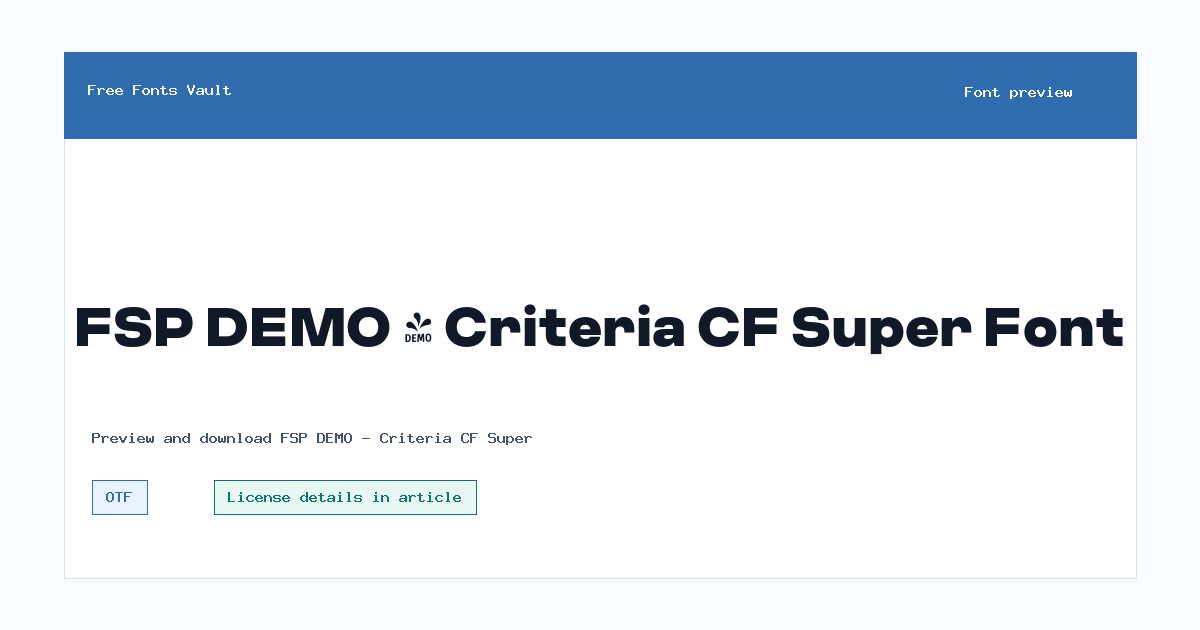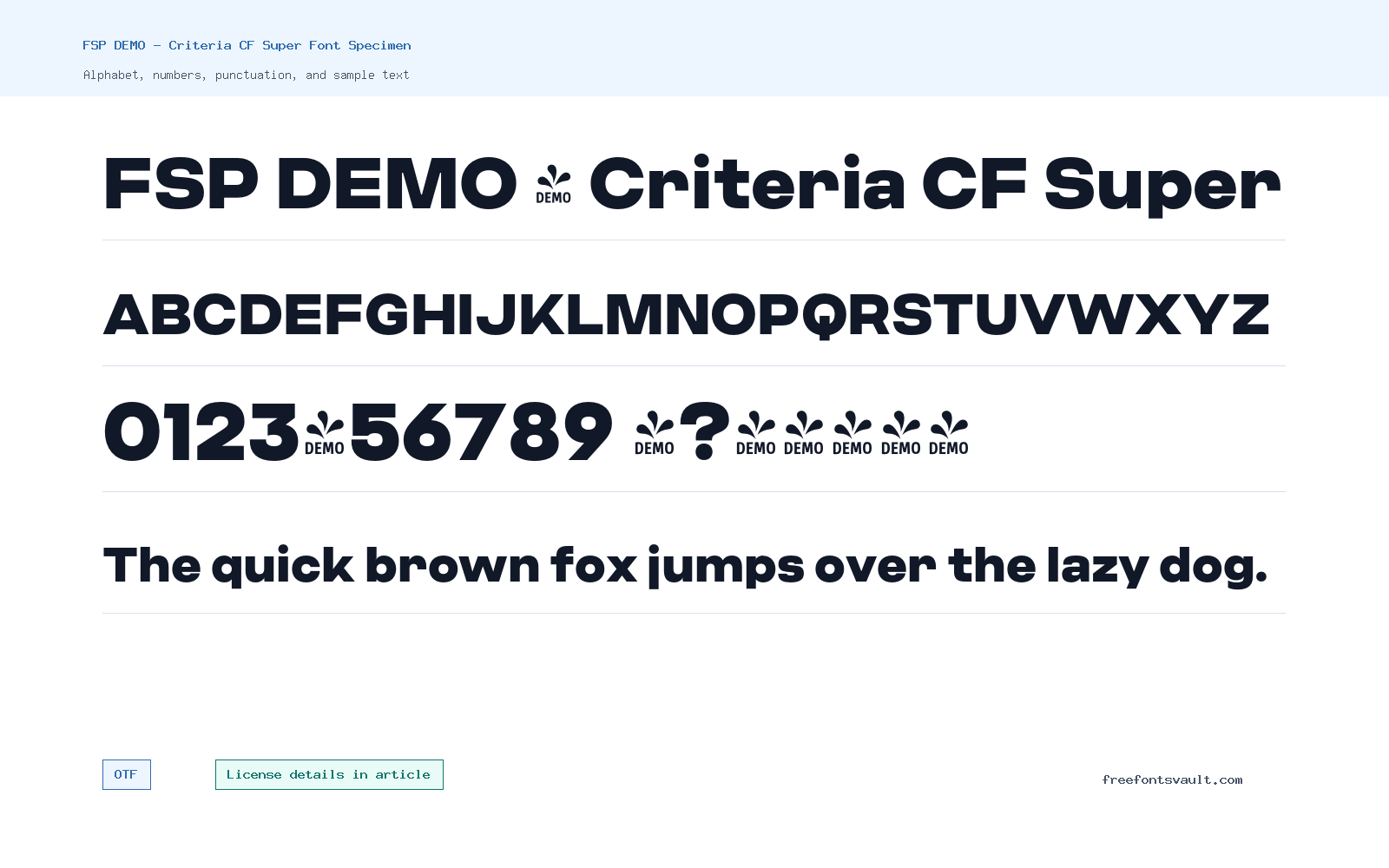
FSP DEMO - Criteria CF Super
• Designer Connary Fagen
• Foundry Connary Fagen
FSP DEMO – Criteria CF Super is a demo OpenType font connected to Criteria CF, a geometric sans family by Connary Fagen. It has a clean, constructed look that works best when you want short text to feel modern, direct, and tightly organized.
About FSP DEMO – Criteria CF Super
Criteria CF is described by Connary Fagen as a geometric sans built from straight lines and clean circular forms. The family is made for stacked lowercase text, strong headlines, and wordmarks, so this Super demo is a good style to test when your design needs bold structure rather than decorative detail.
Use the preview box with real words, brand names, menu labels, and short headlines. Geometric sans fonts can look sharp in display sizes, but spacing and letter shapes may feel tight in longer reading text, so check uppercase words, numerals, and mixed-case lines before committing to a layout.
Because this is a Super style, test it as a display face first. It may look strongest in bold one-line messages, compact navigation labels, or a logo draft where the geometric construction is visible. If you need several paragraphs, use Criteria CF Super for the heading and switch to a quieter text font below it.
• Geometric sans-serif character with straight forms and circular shapes
• Strong Super cut for short, assertive display settings
• Upright OTF style for direct headline testing
• Headlines, short titles, and poster-style text
• Logos, wordmarks, labels, and clean digital mockups
• Modern interface mockups, clean title systems, and compact branding tests
Criteria CF is by Connary Fagen, with the foundry listed as Connary Fagen.
Try it at larger sizes first. Check spacing around round letters, all-caps words, numbers, and punctuation. Pair it with a calmer text face if you need long paragraphs, because this style is better suited to short, high-impact text.
What kind of font is Criteria CF Super?
It belongs to the Criteria CF geometric sans family, which uses clean construction, straight lines, and circular forms.
Who designed Criteria CF?
Criteria CF is credited to Connary Fagen.
Test short headlines, brand names, all-caps text, numerals, and punctuation. These will show whether the strong geometric style and spacing fit your design.